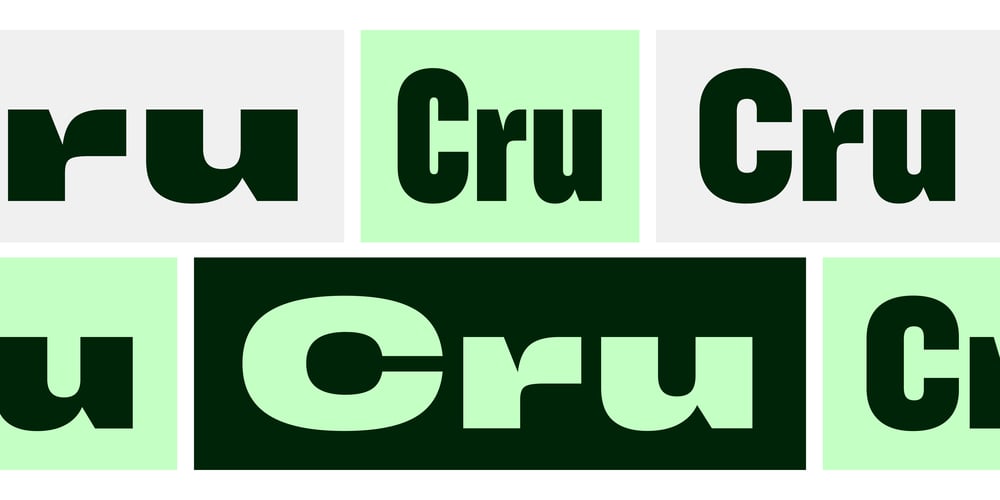
Cru Font Family was designed by Dries Wiewauters and published by Studio Dries Wiewauters. Cru contains 6 styles and family package options. Aiming to distil the overall gesture, flavour and intention of wood type, Dries Wiewauters’ Cru, removes the historic limitations of the medium to breathe new life into a classic. Manufacturing limitations historically drove certain letter forms definition. Wood type processes limited the inside radius or changes in stroke direction to be a minimum thickness of the router piece, thus forcing restraints that were reflected in nuanced and at points, cru(de) output. In English, Cru can be defined as a French vineyard producing wine grapes, especially one formally graded as to the quality of its annual production. However the Dutch meaning is more layered. A Cru person is painfully candid and sincere. A Cru form is rough. A Cru statement can be rude or excessive. Cru food can be unsalted. Reflecting the dual definitions of refinement vs roughness, as a typeface Cru aims to be, and can be, many things at once. Traversing from X Condensed through X Expanded, Cru gives a unique take on an old favourite. Giving users the most flavour with the least effort, akin to the simple pleasures of the best comfort food.